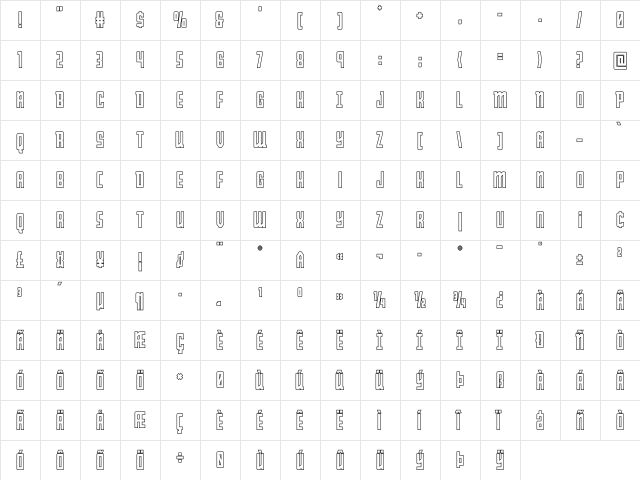
Young Patriot Outline Outline
Design Context for Young Patriot Outline Typeface
Young Patriot Outline brings ornamental detail and strong personality to headlines and identities, where visual impact matters more than quiet functionality.
Font Pairing: Pair with a clean neutral sans-serif for body copy to let Young Patriot Outline's character lead without overwhelming the composition.
Pro Tip: Treat Young Patriot Outline as the centrepiece of your typographic hierarchy. One strong heading set in a decorative face can carry an entire layout.